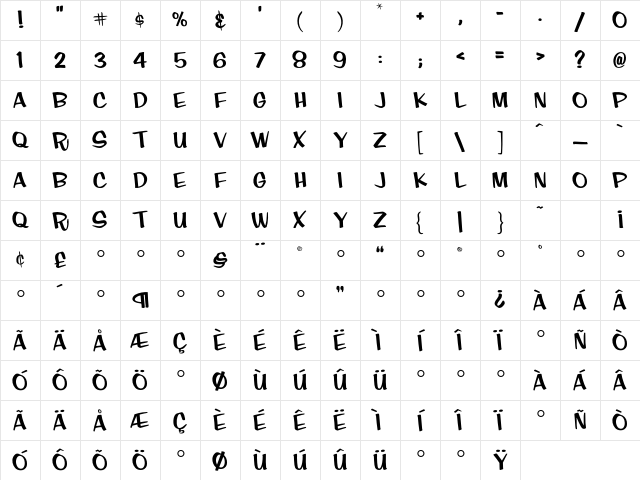
Complete FinkCasual Medium glyph index. Displaying only characters natively supported by FinkCasual Medium font.
FinkCasual is a composed and adaptable typeface that performs quietly and consistently across a wide range of design contexts.